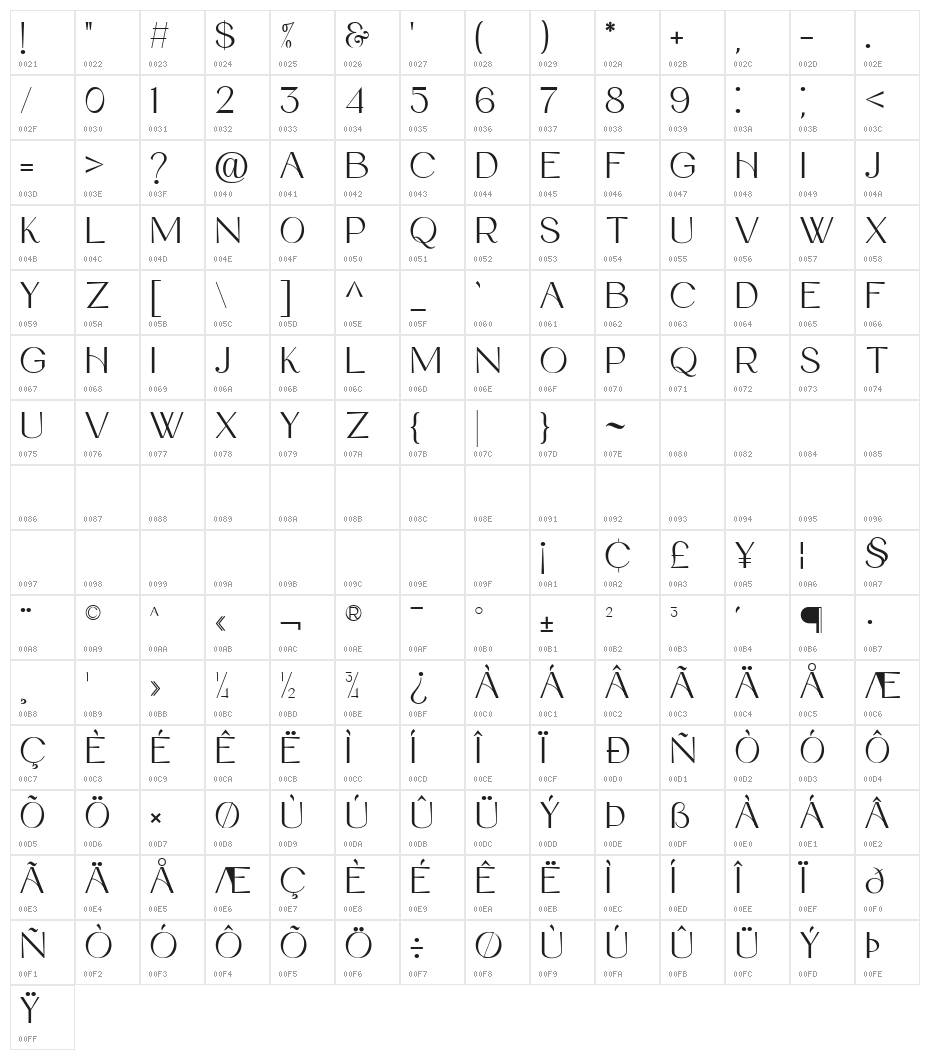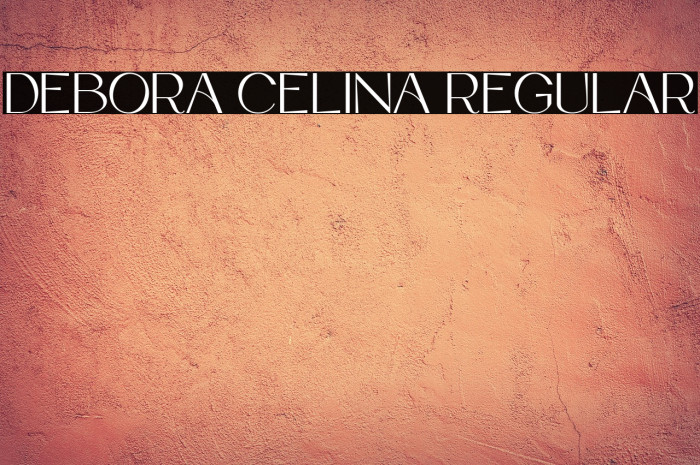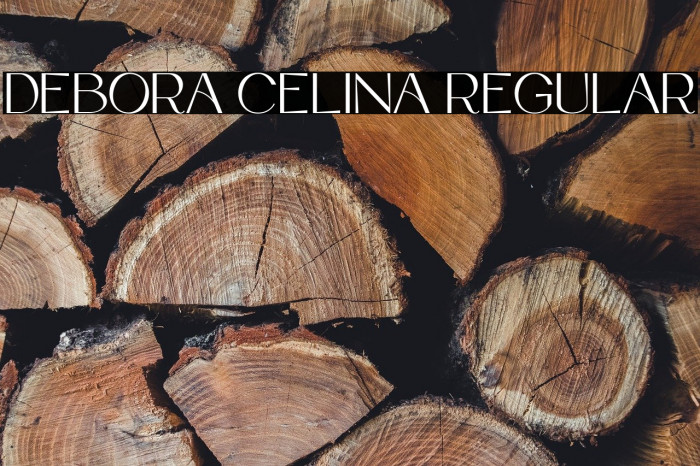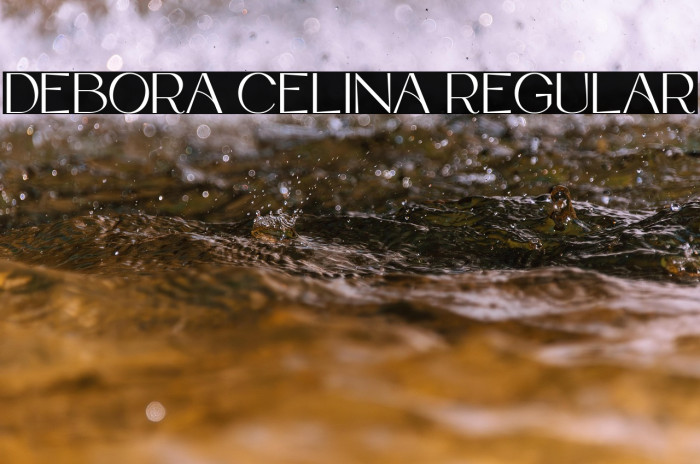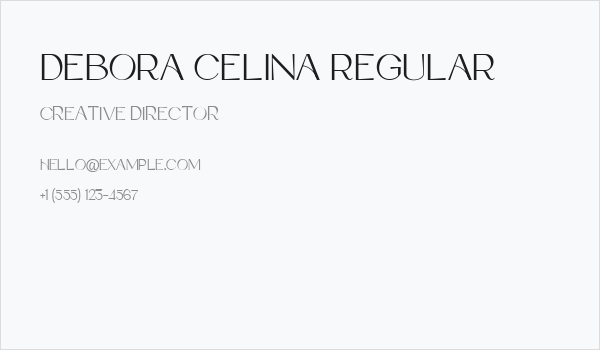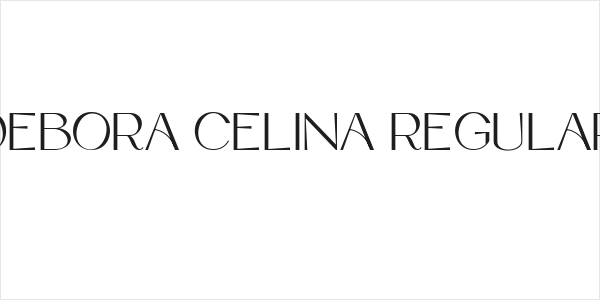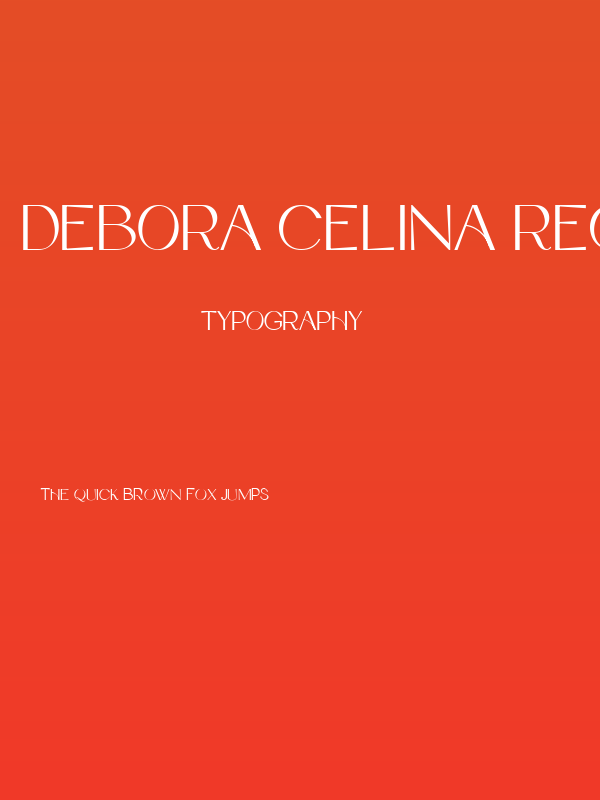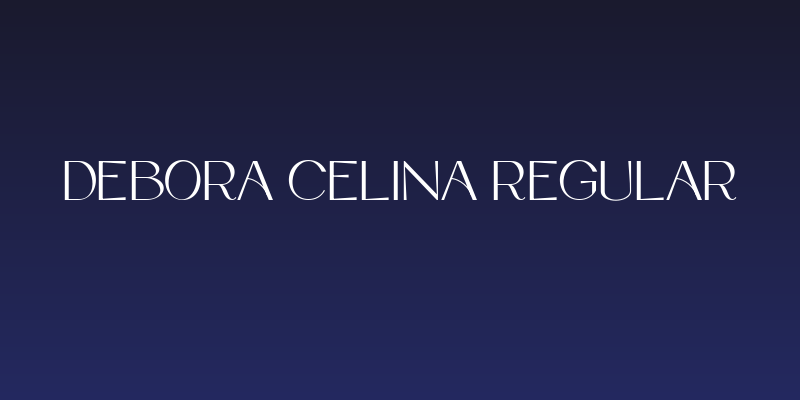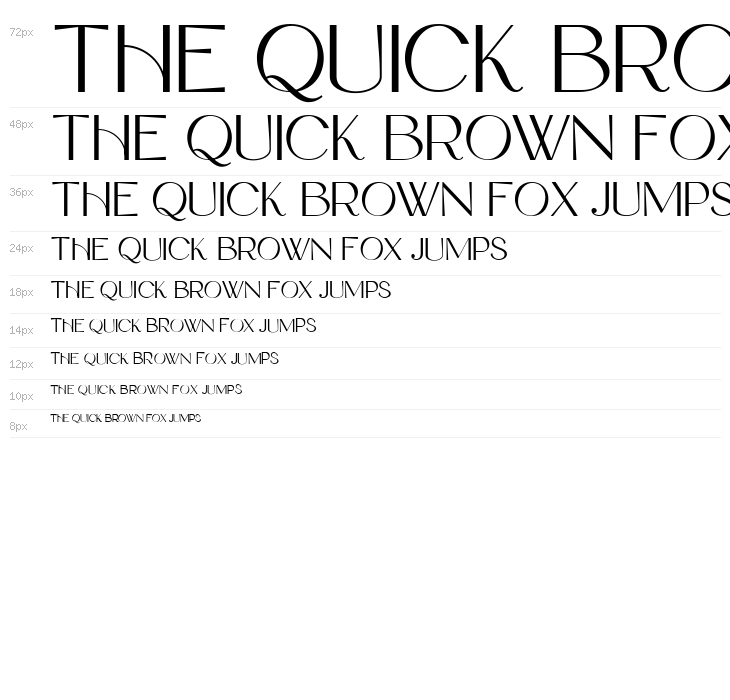
Debora Celina Regular Font
Debora Celina Regular Description
A modern, elegant sans-serif typeface with high contrast between thick and thin strokes, featuring geometric shapes and unique, stylish letterforms. The characters are tall with a normal width, and the spacing is slightly wide, giving it an airy, sophisticated appearance. Some glyphs have distinctive flourishes, adding a decorative touch.
| Overall Style | Modern, Decorative, Elegant |
| Use Case | Headlines, Logos, Editorial, Branding |
| Proposed Projects | Fashion branding, luxury packaging, editorial headlines, invitations, logos. |